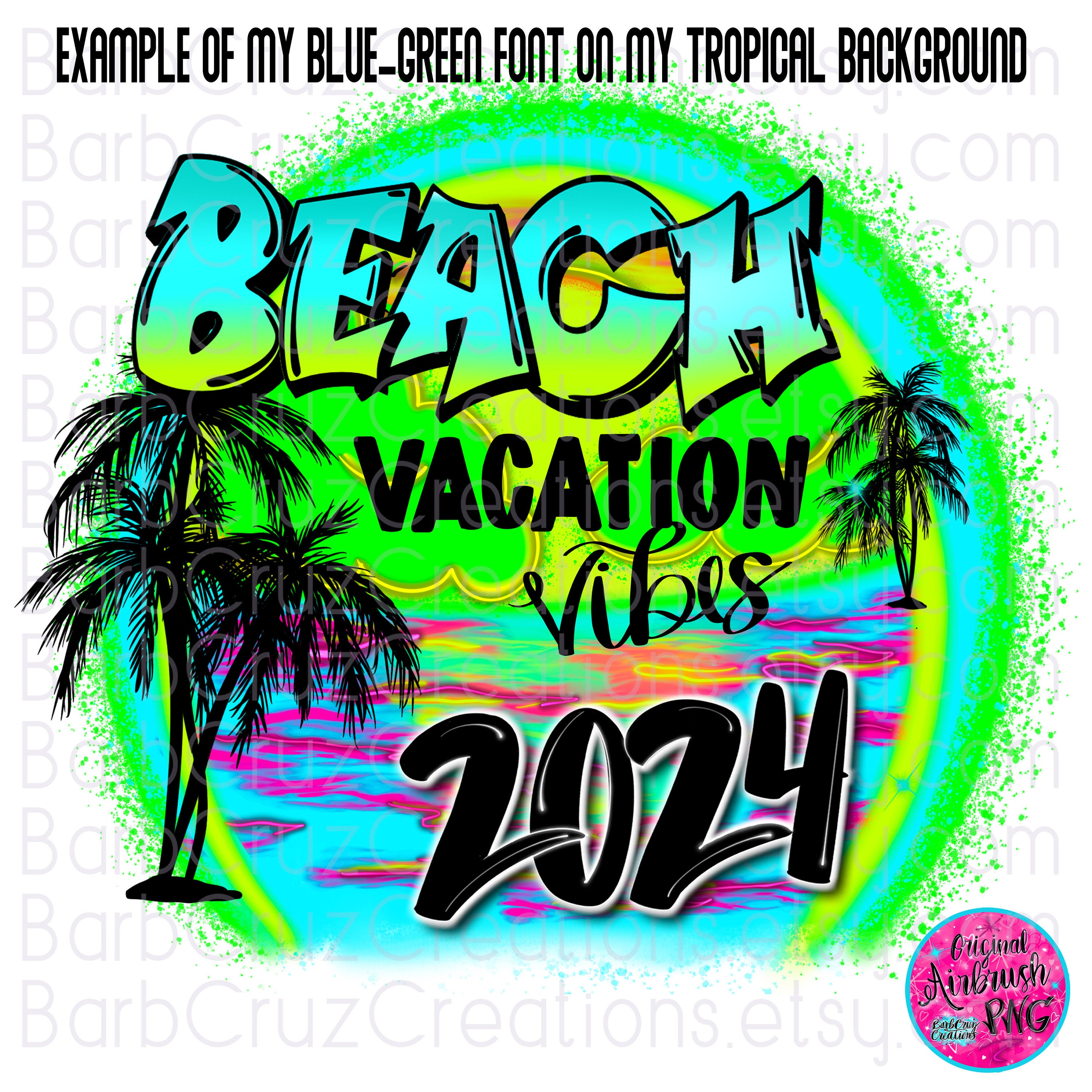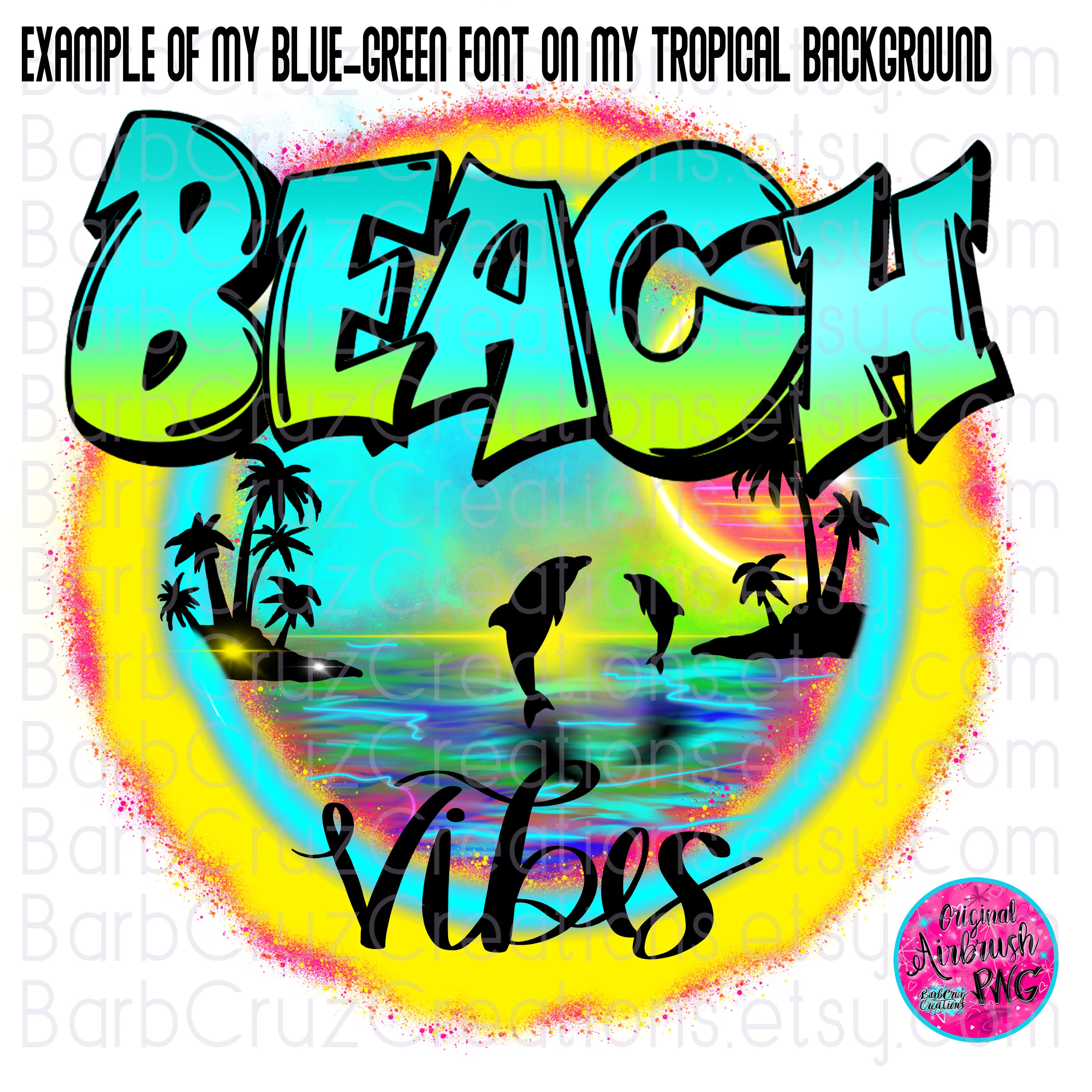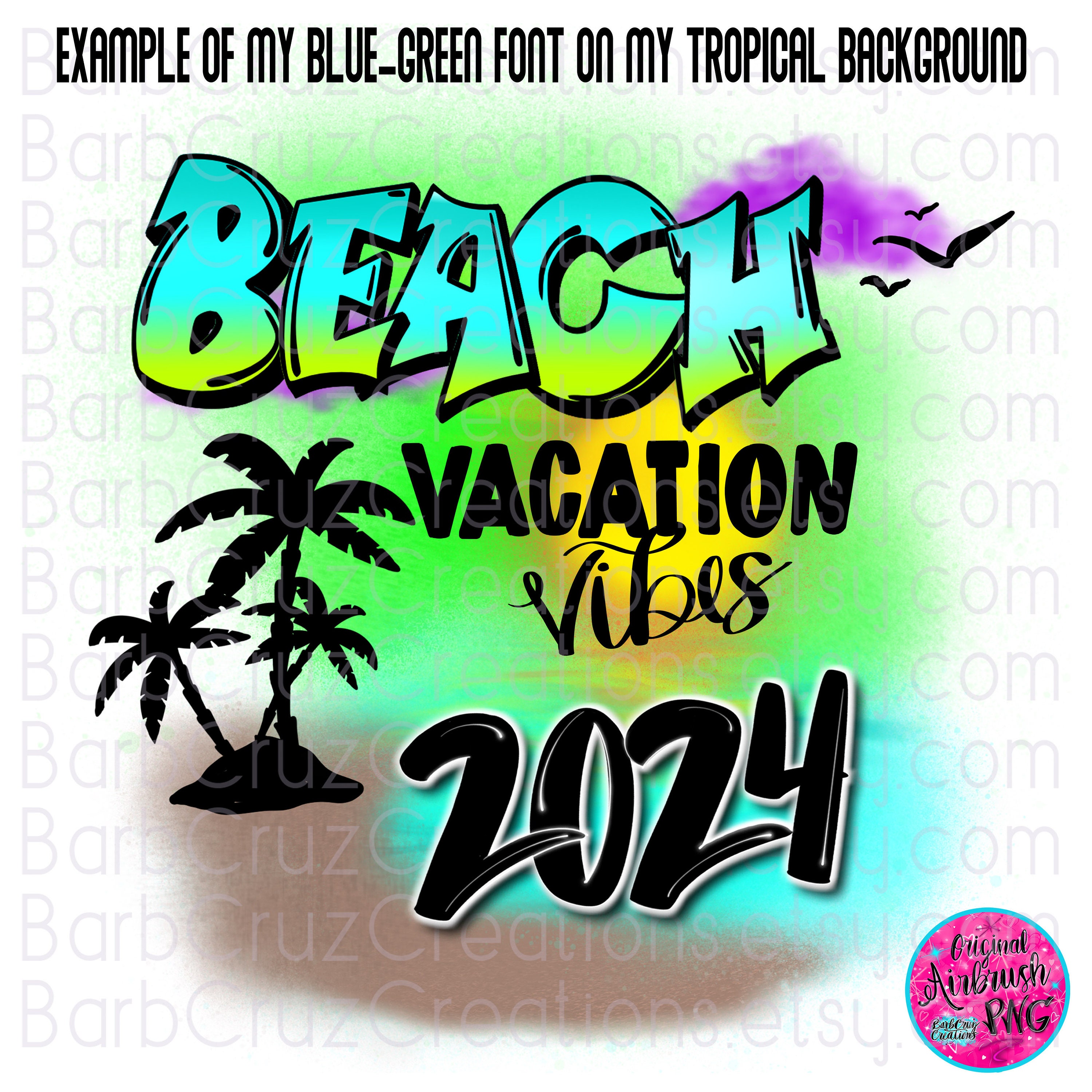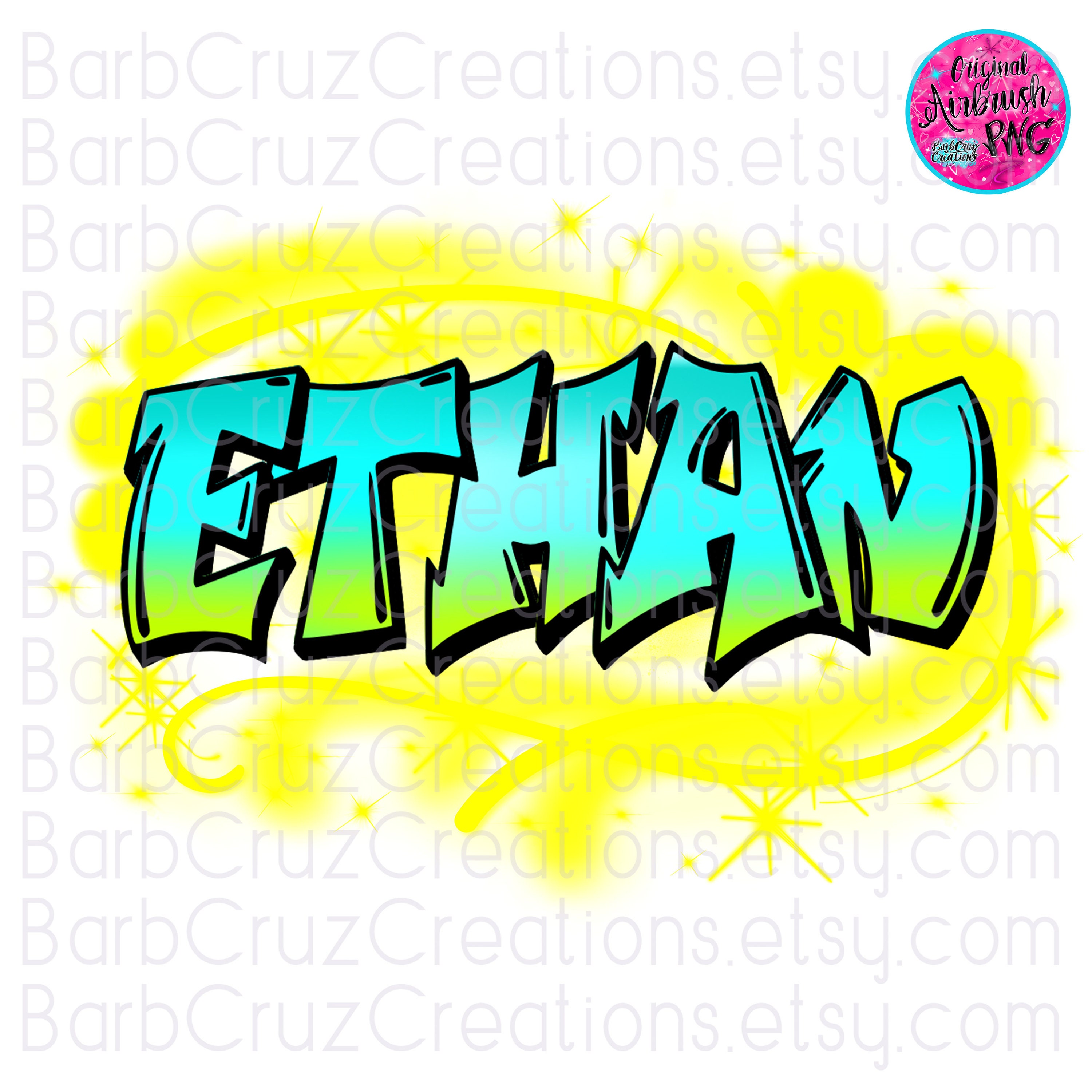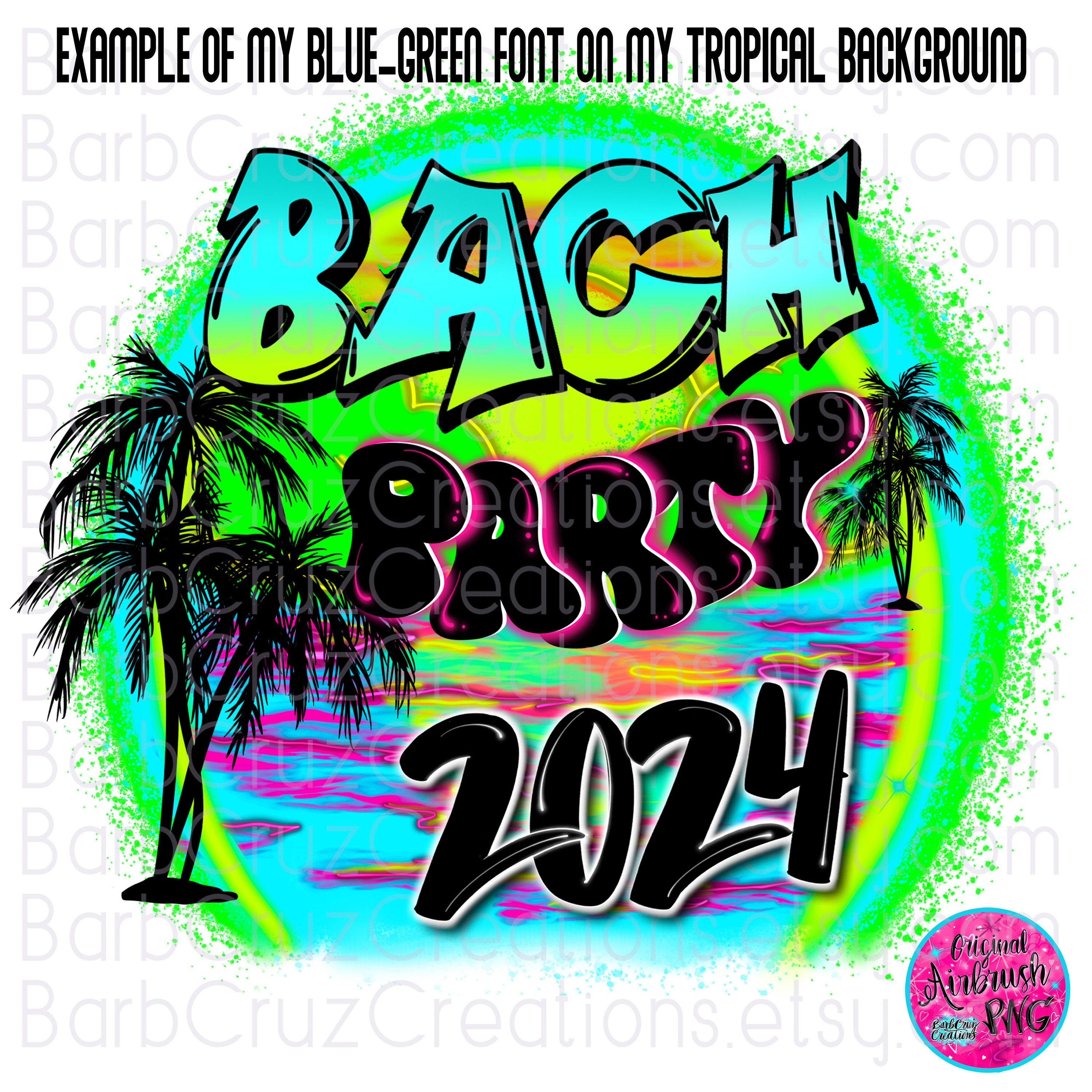
Airbrush Font png, Lettering, Letter Images, Sublimation, DTF, Custom Names, Fun Fonts, Graffiti png, Yellow, Blue-Green
Blue-Green & Yellow Letter Image png's on a zip file.
Bundle set, boxy Letters, Airbrush Capital Letters, Airbrush Fonts, Sublimation Designs, Digital Downloads, png, DTF, DTG, clipart, Waterslides, Heat Transfer
Add to a background use for airbrush monogram, a personal message, name, image to make custom in your design program.
Watercolor & Airbrush Images are transparent in some spots and can be layered to achieve darker or brighter images. Use your copy and paste feature for desired brightness.
* These are individual images. So you can layer them and place them for your desired look. (They are NOT fonts to incorporate into your computer keyboard to type out.) the images have a transparent background for layering. There are 26 images 1 for each letter in a zip file. Once you download the zip file you can extract all the images into you pictures folder for use.